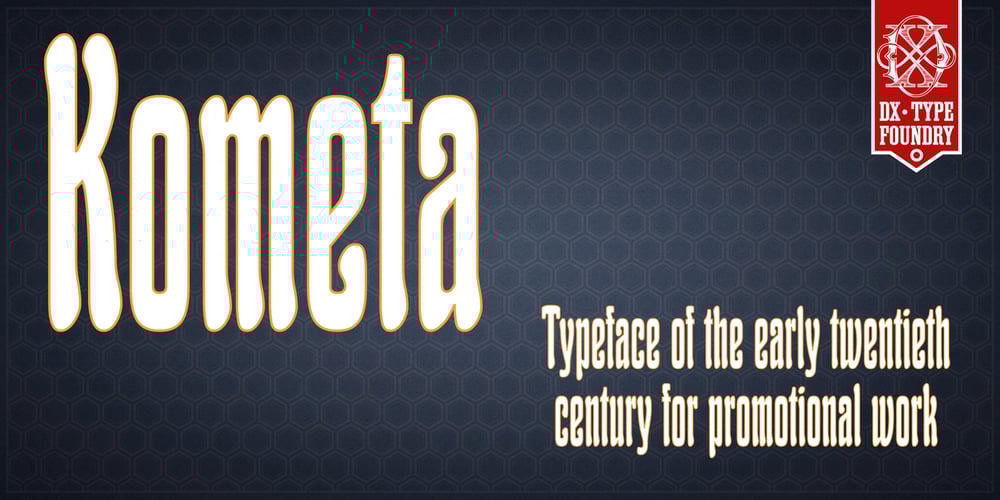
DXKometa
DXKometa font
DXKometa Font Family was designed by Dmitriy Horoshkin and published by DXTypefoundry. DXKometa contains 1 styles and family package options. The advertising font Kometa(Komet) was released in 1907 by the typefoundry Benjamin Krebs Nachf., Frankfurt, M.,. The digital version was created in 2015 on the basis of stamp from the catalog “foundry and factory copper lines B.Krebs Successor” St. Petersburg and Frankfurt. In 2017 the font was modified.